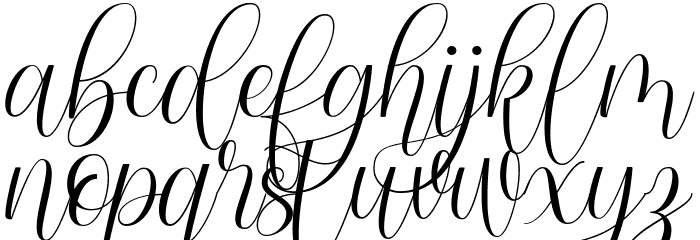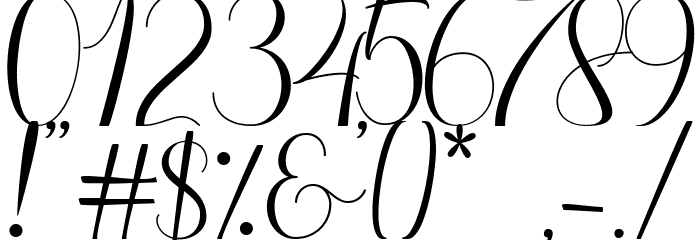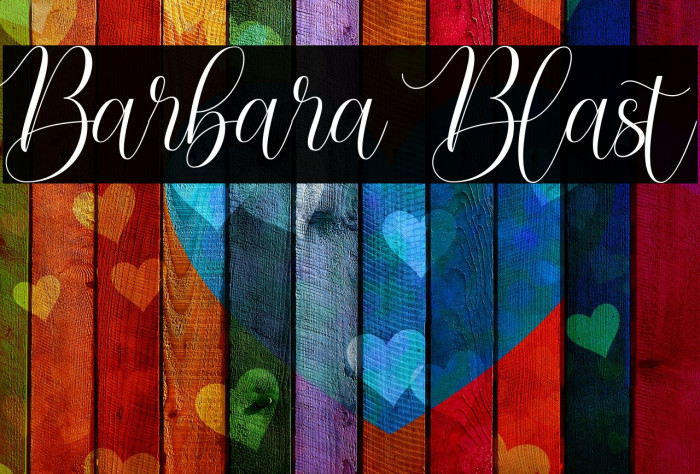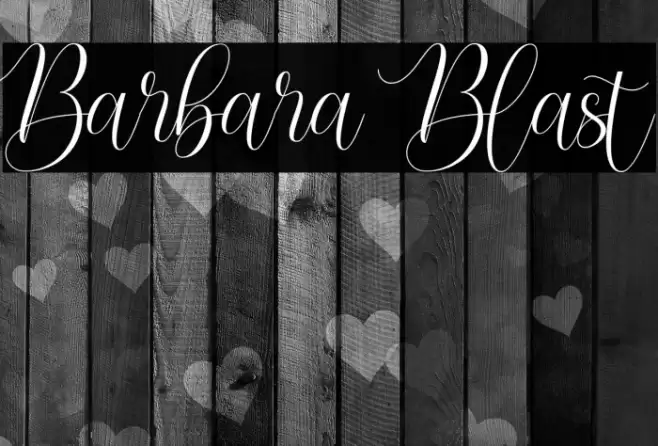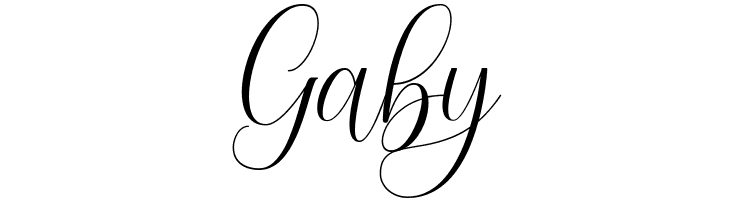
Barbara Blast Font
This elegant script font features flowing, interconnected letters with a sophisticated flair. The uppercase characters exhibit graceful loops and swashes, while the lowercase letters maintain a consistent, cursive style that enhances readability. The numerals are stylishly integrated, maintaining the font's overall fluidity. Special characters are crafted with the same attention to detail, ensuring a cohesive look across all glyphs. The font's delicate strokes and high contrast between thick and thin lines give it a refined, luxurious appearance, making it ideal for formal invitations, branding, and decorative purposes.
A refined script font with elegant, flowing characters and high contrast strokes.
- Proposed Projects: Ideal for wedding invitations, luxury branding, elegant stationery, and decorative headlines.
- Overall Style: Elegant, Decorative
- Use Case: Headlines, Invitations, Branding